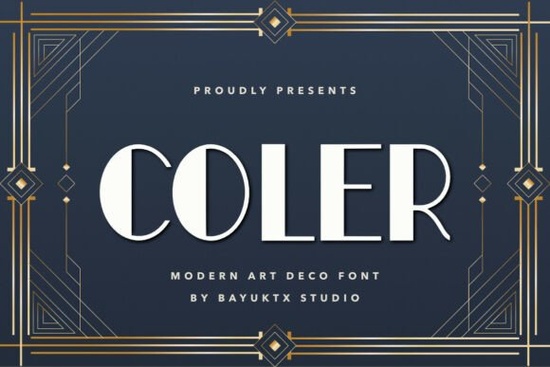
If you're working on a project that calls for vintage elegance with a clean, modern edge, the Coler Art Deco Font might be exactly what you need. Inspired by the bold geometry and refined symmetry of 1920s design, this typeface blends architectural precision with timeless glamour making it ideal for everything from wedding invitations to boutique branding.
Unlike overly ornate scripts or rigid display fonts, Coler strikes a balance: it’s structured but not stiff, decorative but still highly legible. Each letterform reflects the confidence and sophistication of the Art Deco era, yet feels fresh enough for contemporary use. Whether you’re designing a logo for a luxury skincare line or crafting a headline for a retro-inspired magazine spread, this font adds instant character without overwhelming your layout.
What makes Coler Art Deco stand out from other decorative fonts?
Many Art Deco–style fonts lean heavily into ornamentation think sharp serifs, excessive flares, or intricate detailing that can clutter small spaces. Coler avoids those pitfalls. Its clean lines and consistent stroke weight give it versatility across both print and digital media. You’ll find it works especially well at larger sizes (like headlines or signage), but it holds up surprisingly well in mid-sized text too, thanks to its open counters and balanced proportions.
For designers who value both aesthetics and functionality, this font offers a rare combination: visual impact paired with readability. It’s also available in multiple weights or stylistic alternates depending on the version you choose, giving you room to experiment while maintaining a cohesive look.
Who should consider using this font?
- Small business owners creating upscale packaging, labels, or storefront signage
- Print-on-demand sellers designing mugs, posters, or apparel with a vintage-luxury vibe
- Wedding stationery designers looking for a font that feels opulent but not fussy
- Graphic designers building brand identities for beauty, hospitality, or fashion clients
- Crafters and hobbyists making custom greeting cards, wall art, or scrapbook elements
If your project benefits from a hint of old-world charm without veering into costume territory Coler Art Deco delivers. It pairs beautifully with minimalist sans-serifs (like Helvetica or Futura) for contrast, or with soft serif fonts to enhance its classic feel.
How does it compare to other Art Deco–inspired typefaces?
While many fonts in this category mimic the style superficially, Coler Art Deco was built with intentional geometry and spacing that honors the original movement’s principles. You won’t find inconsistent curves or awkward kerning here. The designer paid close attention to how letters interact, ensuring smooth rhythm across words and phrases.
Tips for using Coler Art Deco effectively
- Use it sparingly. Because of its strong personality, it shines best as a headline or accent font not body text.
- Pair it wisely. Combine with neutral, simple typefaces to let Coler take center stage without visual competition.
- Play with scale. This font truly comes alive at larger sizes where its geometric details can be appreciated.
- Consider context. It suits luxury, fashion, travel, and hospitality themes far better than tech or corporate settings.
- Test print output. If using for physical products, always do a proof print some fine details may need slight adjustment depending on your printer or material.
Ultimately, Coler Art Deco isn’t just about looking stylish it’s about communicating a mood: confident, refined, and quietly dramatic. When used thoughtfully, it can elevate a simple design into something memorable.